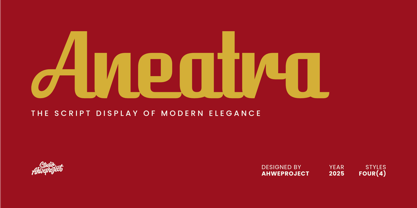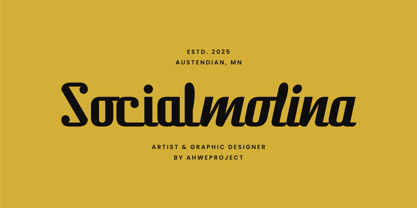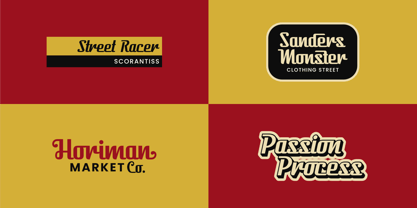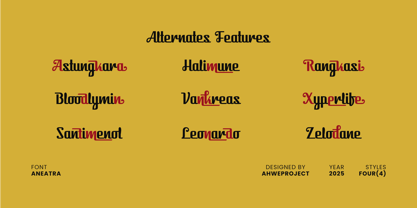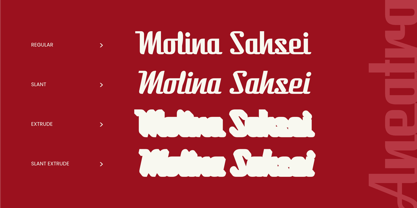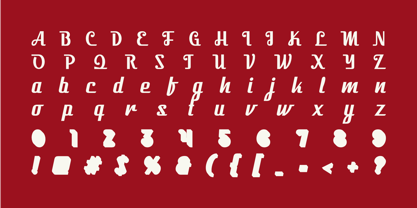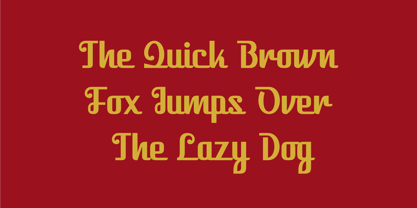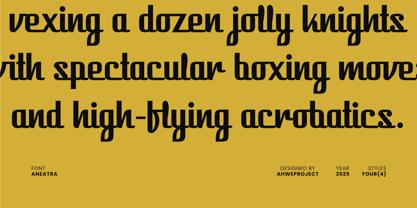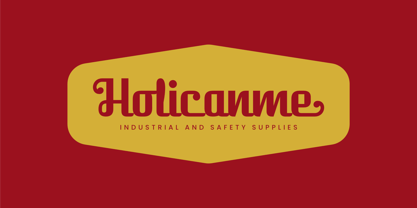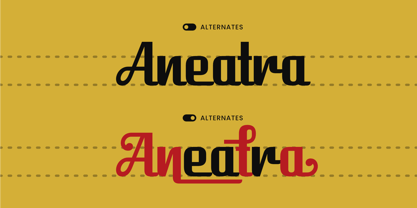
Aneatra
The Aneatra Font Family was designed by Dida Ahluddin and published by ahweproject. Aneatra contains 4 styles and family package options. More about this family
Aneatra is a modern script display font that blends bold style with timeless elegance. Designed for logos, branding, posters, packaging, and editorial designs, Aneatra offers a unique balance of smooth curves and sharp edges that make every word stand out. With four versatile styles, this font is perfect for creating eye-catching headlines, stylish social media graphics, and sophisticated design projects. Whether you’re working on a contemporary brand identity or a vintage-inspired layout, Aneatra brings a touch of modern elegance to your typography.
Features:
- Uppercase & lowercase
- Numbers and punctuation
- Multilingual
- Alternates